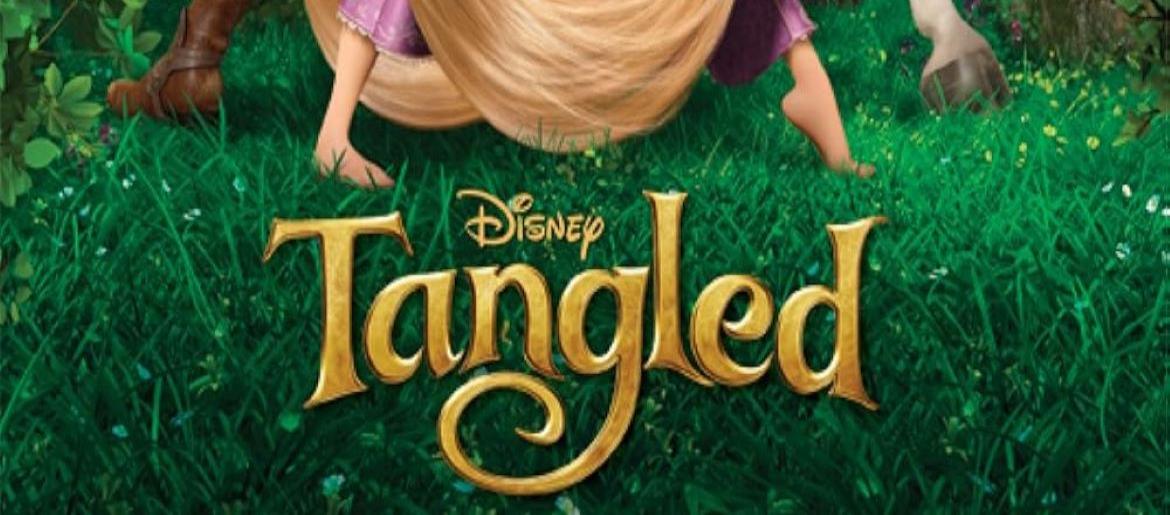
Tangled Font
Tangled font beautifully captures the magical and romantic charm of Disney’s animated film. With elegant curves and whimsical lettering, it reflects themes of adventure, love, and the enchanting glow of Rapunzel’s world. Perfect for wedding invitations, fairytale projects, or any dreamy design, it adds a touch of magic and happily-ever-after vibes.
About Tangled
Tangled is a 2010 Disney animated movie inspired by the classic Rapunzel fairy tale. It follows Rapunzel, a young princess with magical long hair, as she escapes her tower with the help of Flynn Rider to discover the world and find her true destiny.